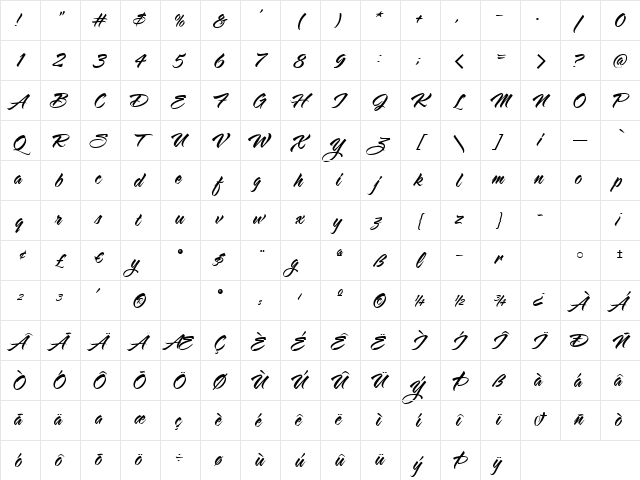
LHF Sarah Script Neue Regular
Design Context for LHF Sarah Script Neue
LHF Sarah Script Neue flows with the natural rhythm of handwritten lettering, making it ideal for designs that call for warmth and personal expression.
Font Pairing: Combine LHF Sarah Script Neue with a simple geometric sans for maximum contrast - the tension between flowing curves and clean structure is a classic typographic pairing.
Pro Tip: Use LHF Sarah Script Neue for short runs of text - names, titles, or taglines. Extended body copy in script faces tires the eye quickly.